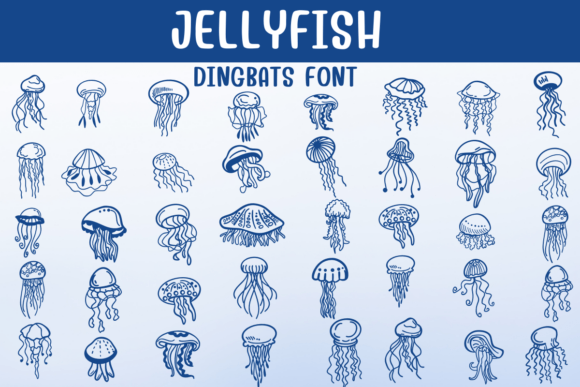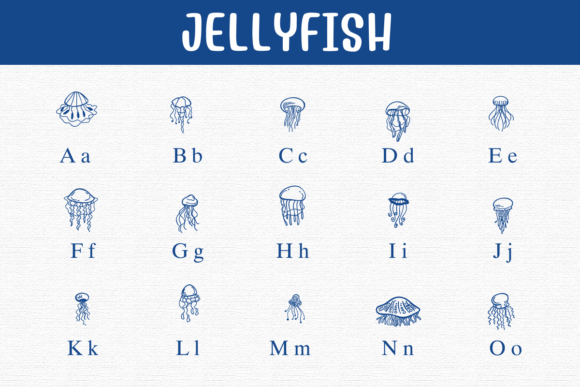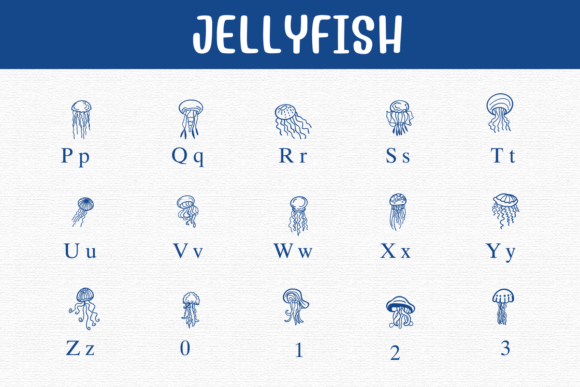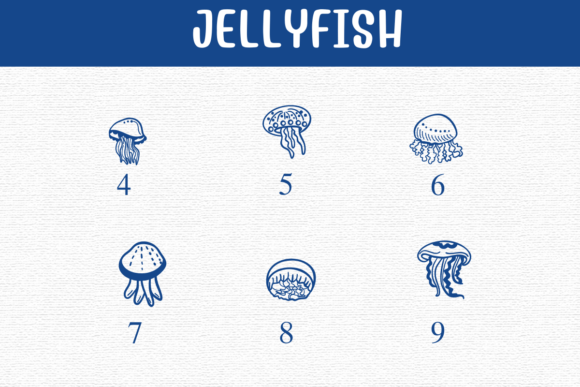
Jellyfish Font
About the Jellyfish Font
Make a bold statement with Jellyfish Font, a powerful and memorable font. Jellyfish is a dingbats font with a sketched theme. This font can enhance your creative projects such as wedding invitations, DIY, crafts, decorations, logos, and many other creative ideas.
Jellyfish’s sketched style works best for headlines, short text blocks on packaging, or as an accent in logos where its whimsical nature can add personality. It’s ideal for brands targeting a young, creative audience, and projects emphasizing handmade or artisanal qualities. Avoid using it for body text or lengthy paragraphs; its informal character makes it unsuitable for extended reading.
Pairing Jellyfish with a clean sans-serif like Open Sans for body copy provides excellent contrast. For a more playful feel, consider pairing it with a rounded geometric sans-serif. A contrasting serif like Playfair Display could create a sophisticated juxtaposition, depending on the project’s overall tone.
The font’s core personality is playful and slightly whimsical, with a handmade feel. It evokes a sense of fun and creativity, making it a strong choice for projects where a lighthearted, approachable aesthetic is desired.
Jellyfish Font Usage Examples
Jellyfish Font Example